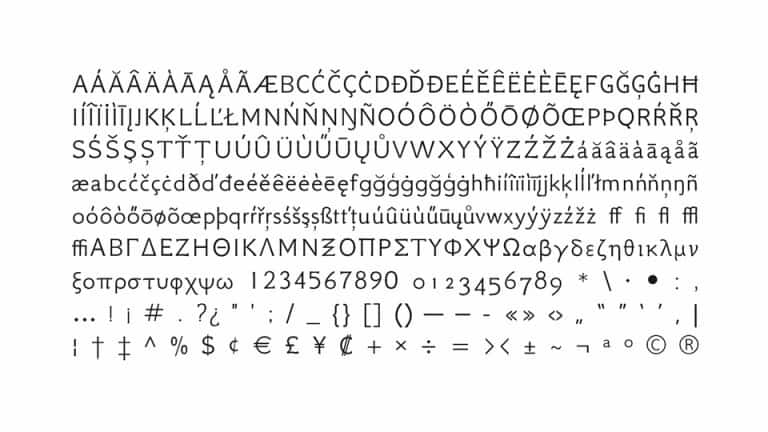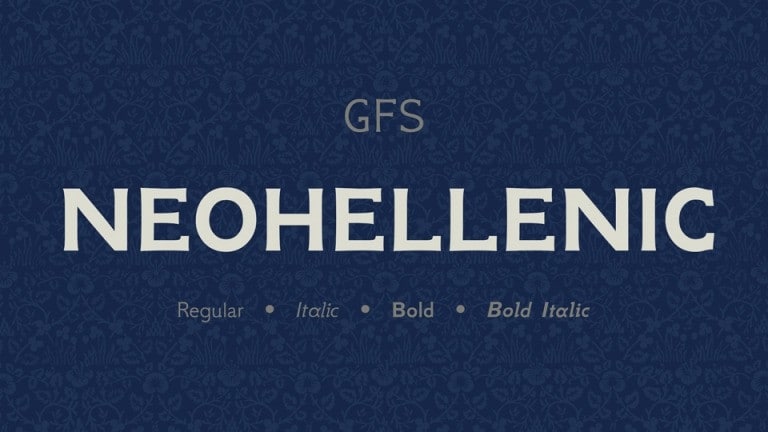
NeoHellenic Serif Font
NeoHellenic Serif Font is based on the Greek type New Hellenic, produced by Lanston Monotype Corporation in 1927 in consultation with British Museum Library curator Victor Scholderer. It’s the revival of a round, and almost monoline type which had first appeared in 1492 in the edition of Macrobius, ascribable to the printing shop of Giovanni Rosso (Joannes Rubeus) in Venice.
GFS digitized the typeface (1993-1994) funded by the Athens Archeological Society with the addition of a new set of epigraphical symbols. Later (2000) more weights were added (italic, bold and bold italic) as well as a latin version.